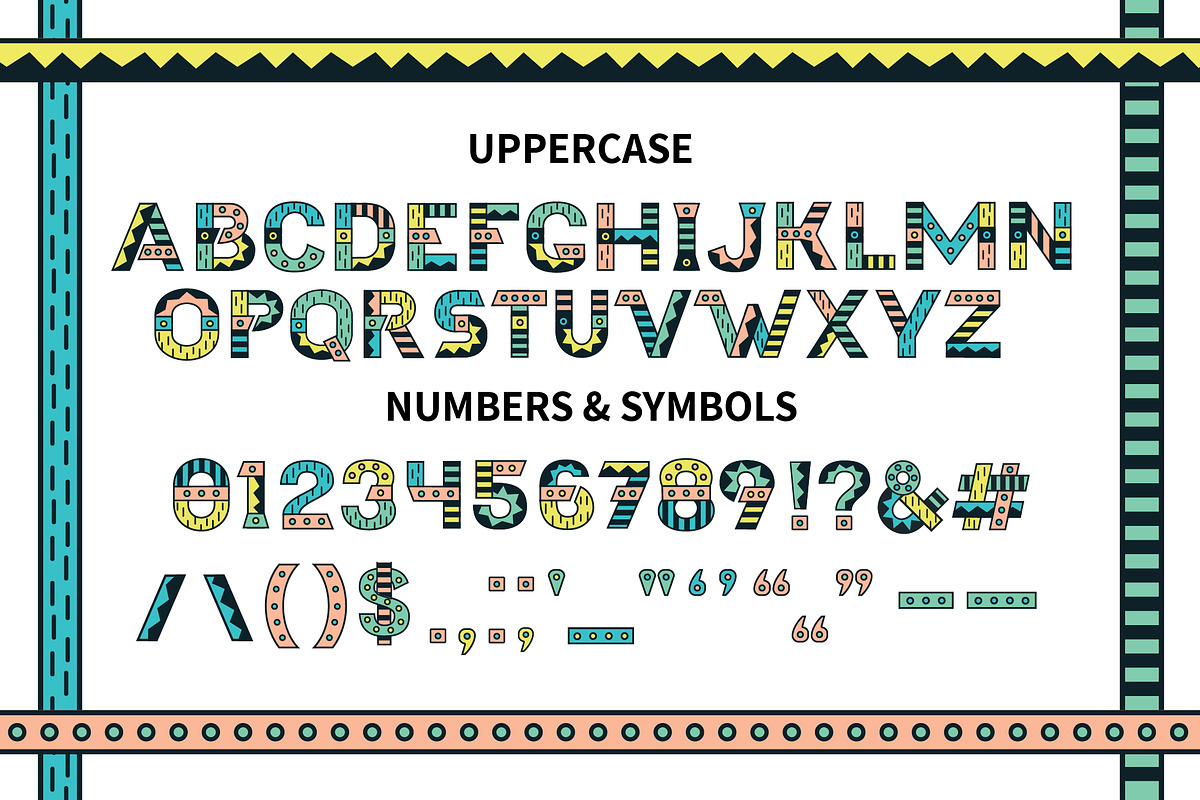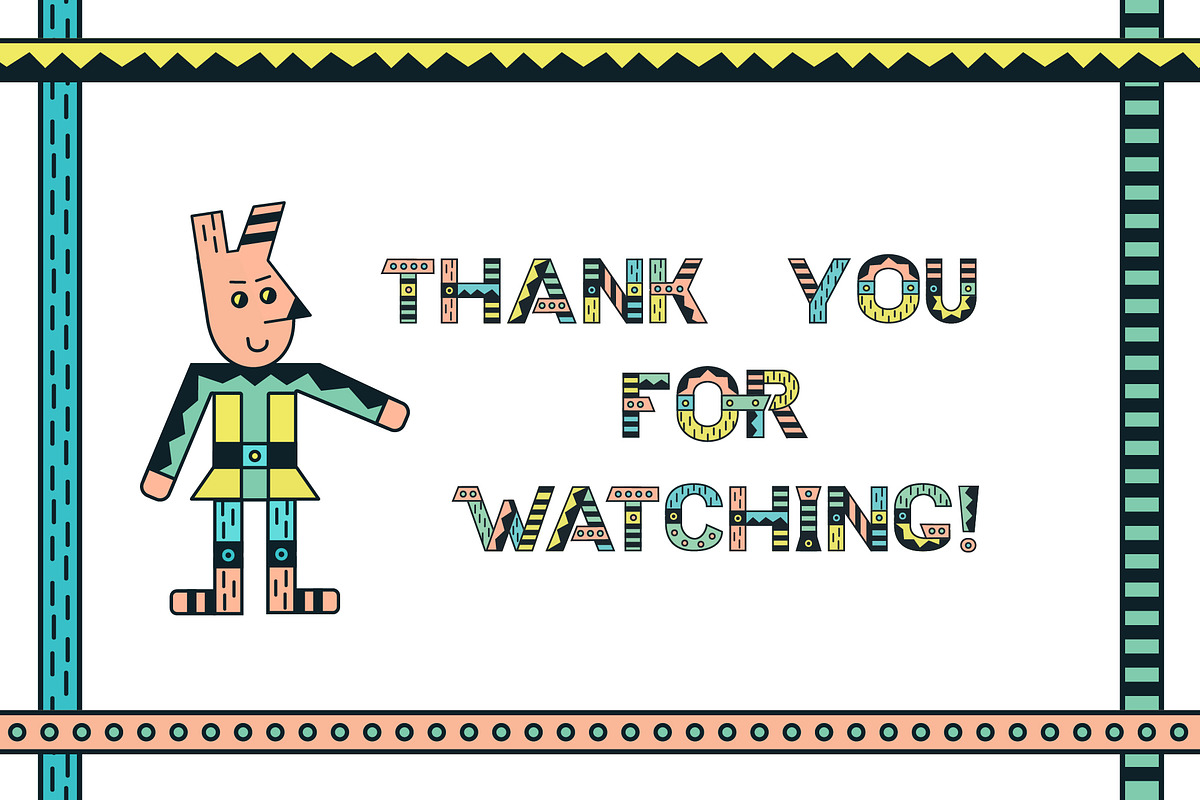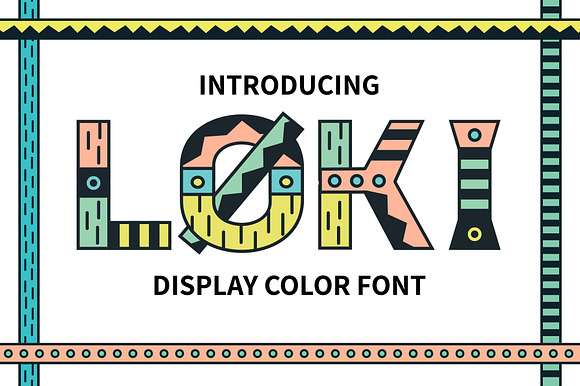
Loki Color Font
Hello! Loki are one of most popular and famous pagan Gods in worldwide. Why so? Because he is tricky, intellectual and very funny God. Furthermore he could found easy exit from all troubles. He is bright, emotional and..... creative like this font.
Loki Color is display colorful font in the OpenType format. Suitable for any design needs, modern invitation design, branding, stationery design, blog design, modern advertising design, invitation, Art Quote, Home decor, Book/Cover Title, Invitation, special events, birthday, custom mug, pillow, t-shirts and more.